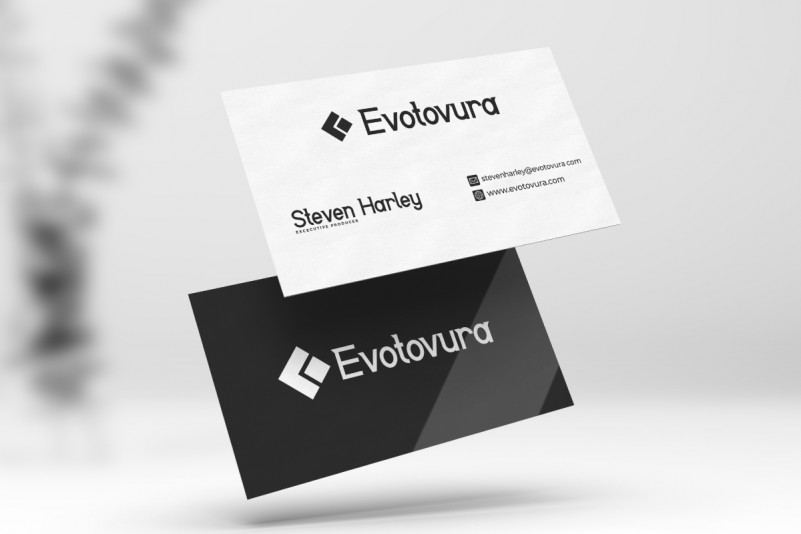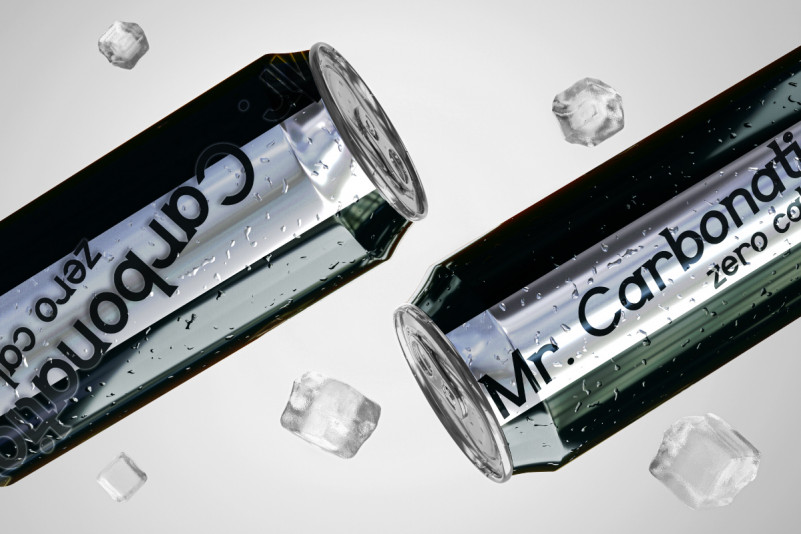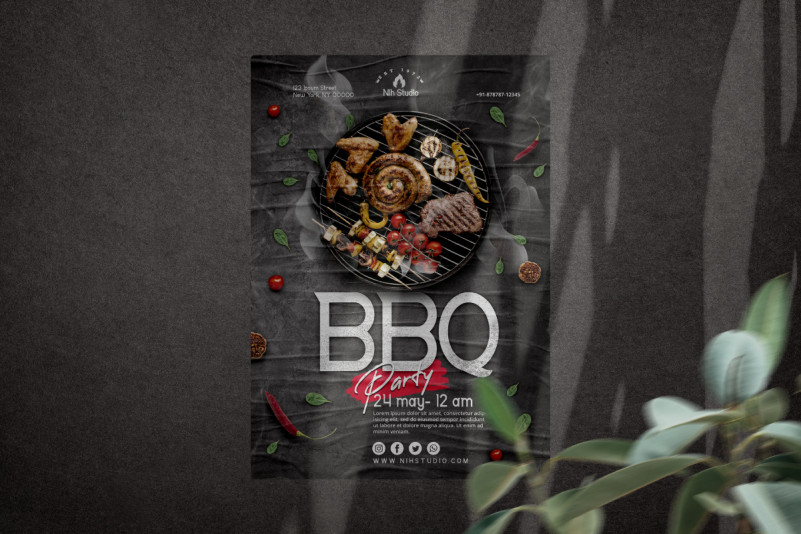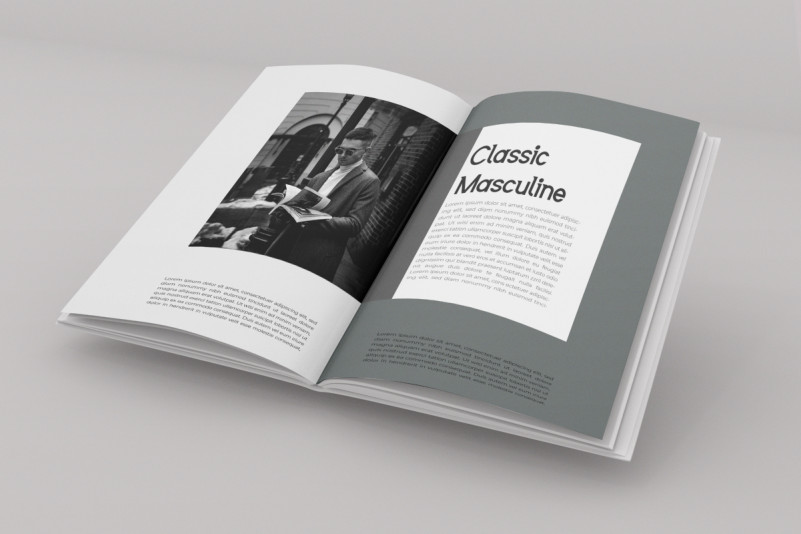
Hanafi Font
Hanafi Serif Font
This font will be great for any projects (require extended license) including : branding, logo, stationery, business card, signage, flyer, brochure etc. Handcrafted here in Indonesia, Hanafi Font comes with unique and exclusive style with ligature to make it more blended and flawless.